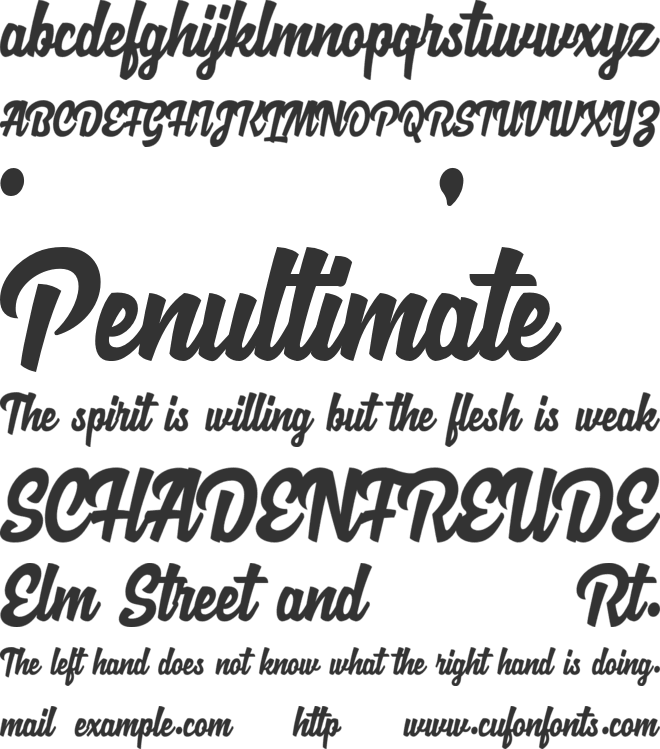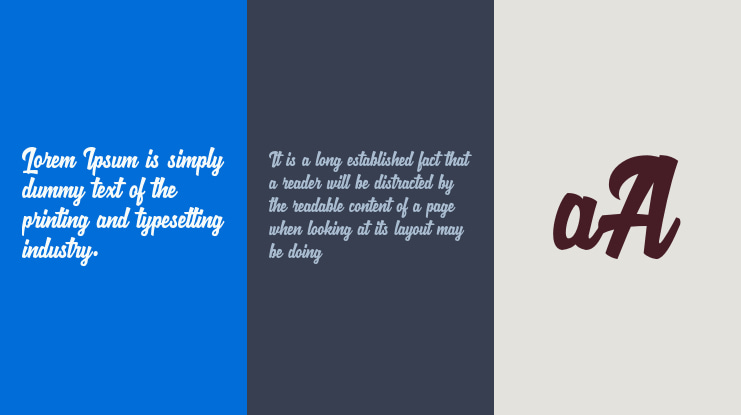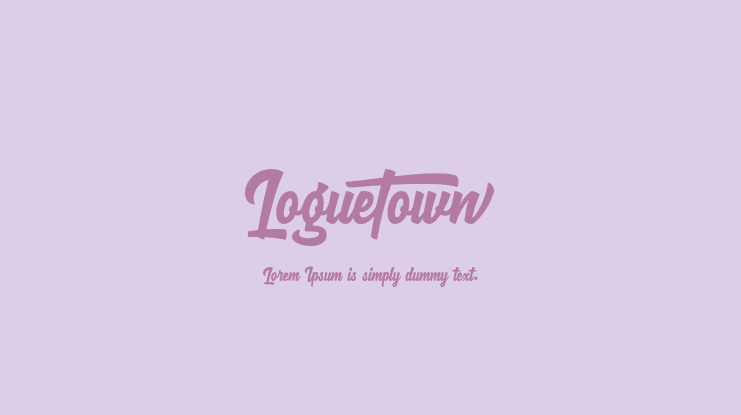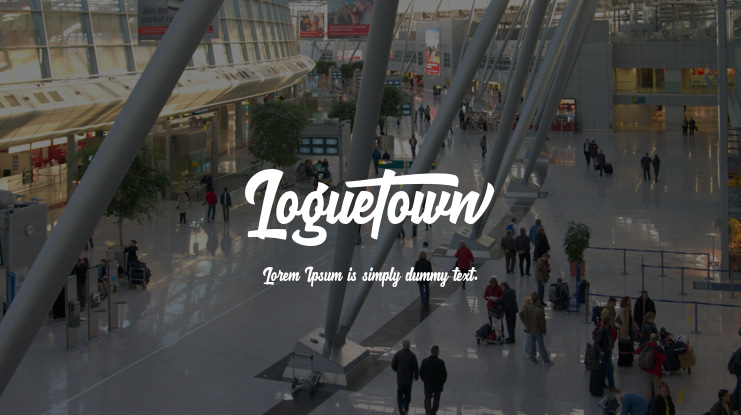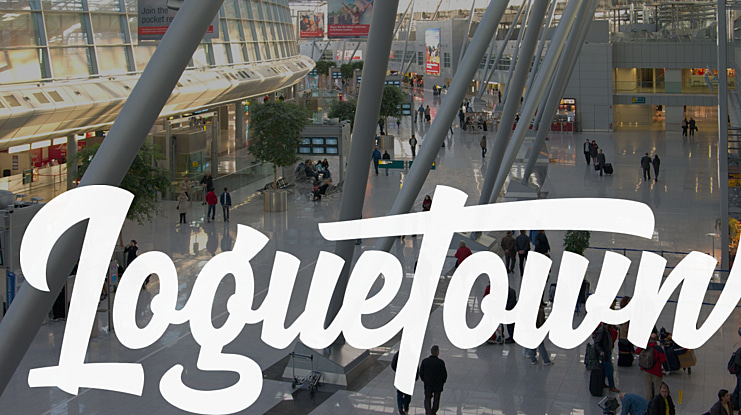
Loguetown Font
Introducing Loguetown Typeface. A bold script font inspired by brush lettering. Perfect for display, logotype, signage, sticker, label and more. You can apply this font for both modern and vintage designs.